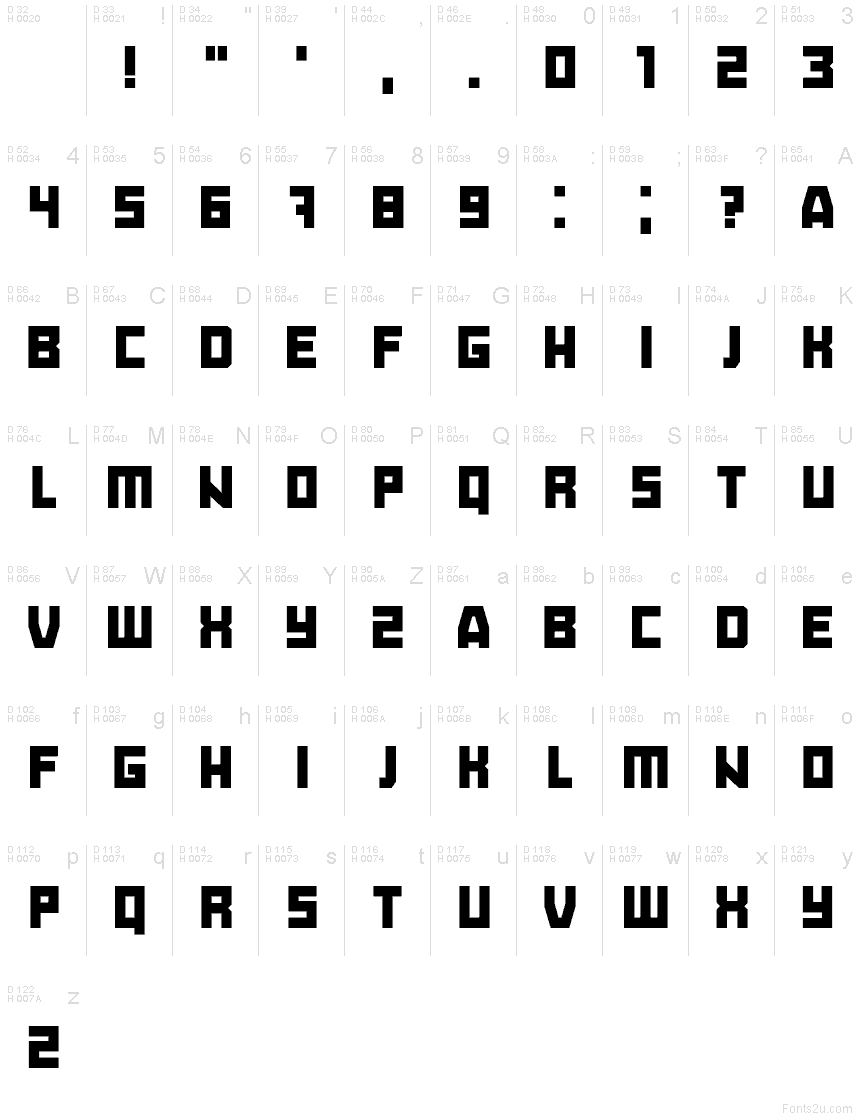
Goldeneye Regular
Goldeneye font by Vladimir Nikolic is a bold sans serif font with a geometric structure and modern appearance. Its perfectly shaped form is strong, impactful, and authoritative. Each glyph looks well structured and even stern in its look. Every word typed in this robust style will certainly be noticeable to the target audience.
It is therefore no wonder that Goldeneye’s possible use cases are enormous; they include magazine covers, logos, advertisements, titles, posters, flyers, branding material along with e-commerce website pages and mobile applications where it can uplift readable information such as descriptions or titles. Enjoy using this free resource!